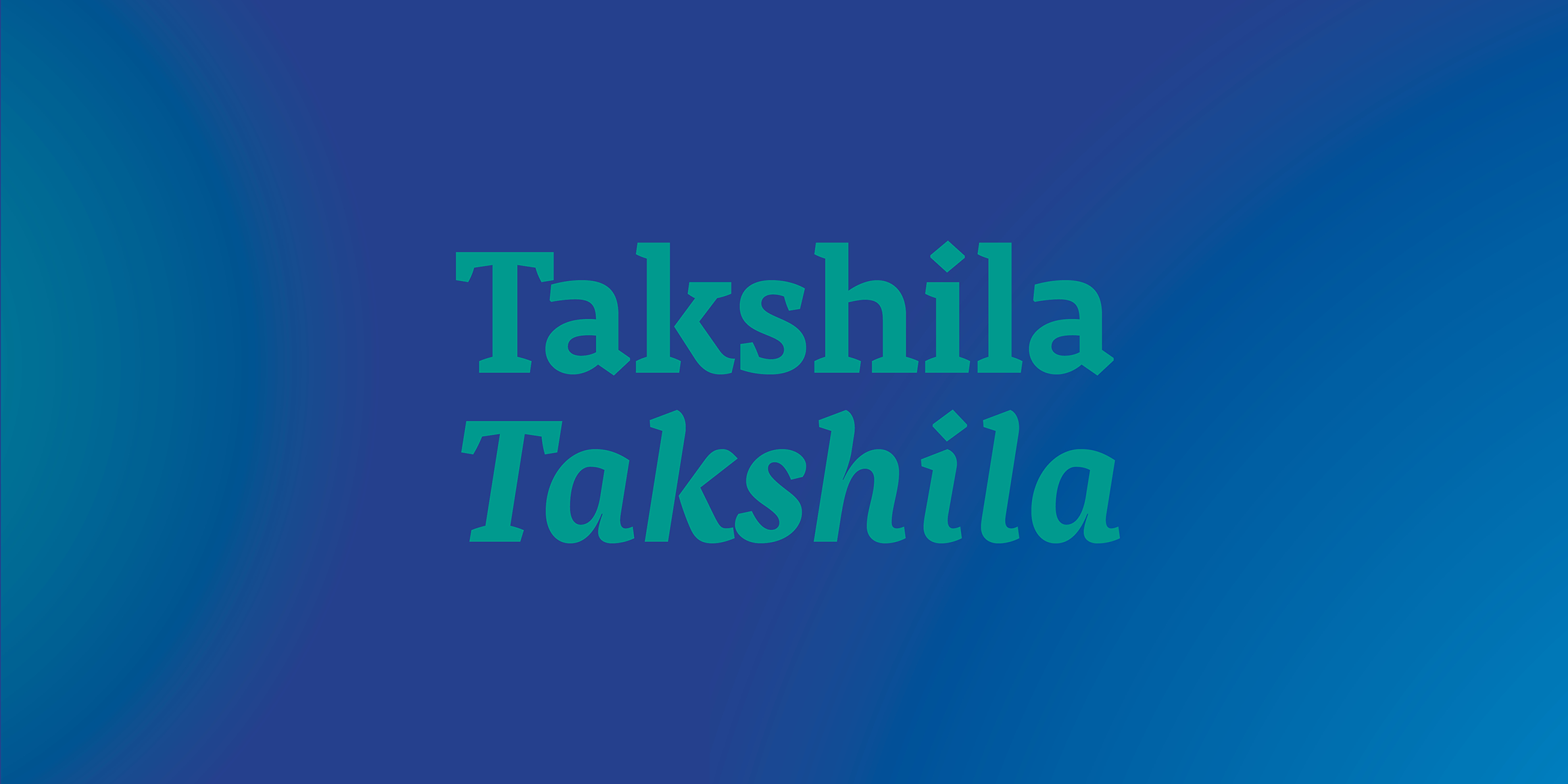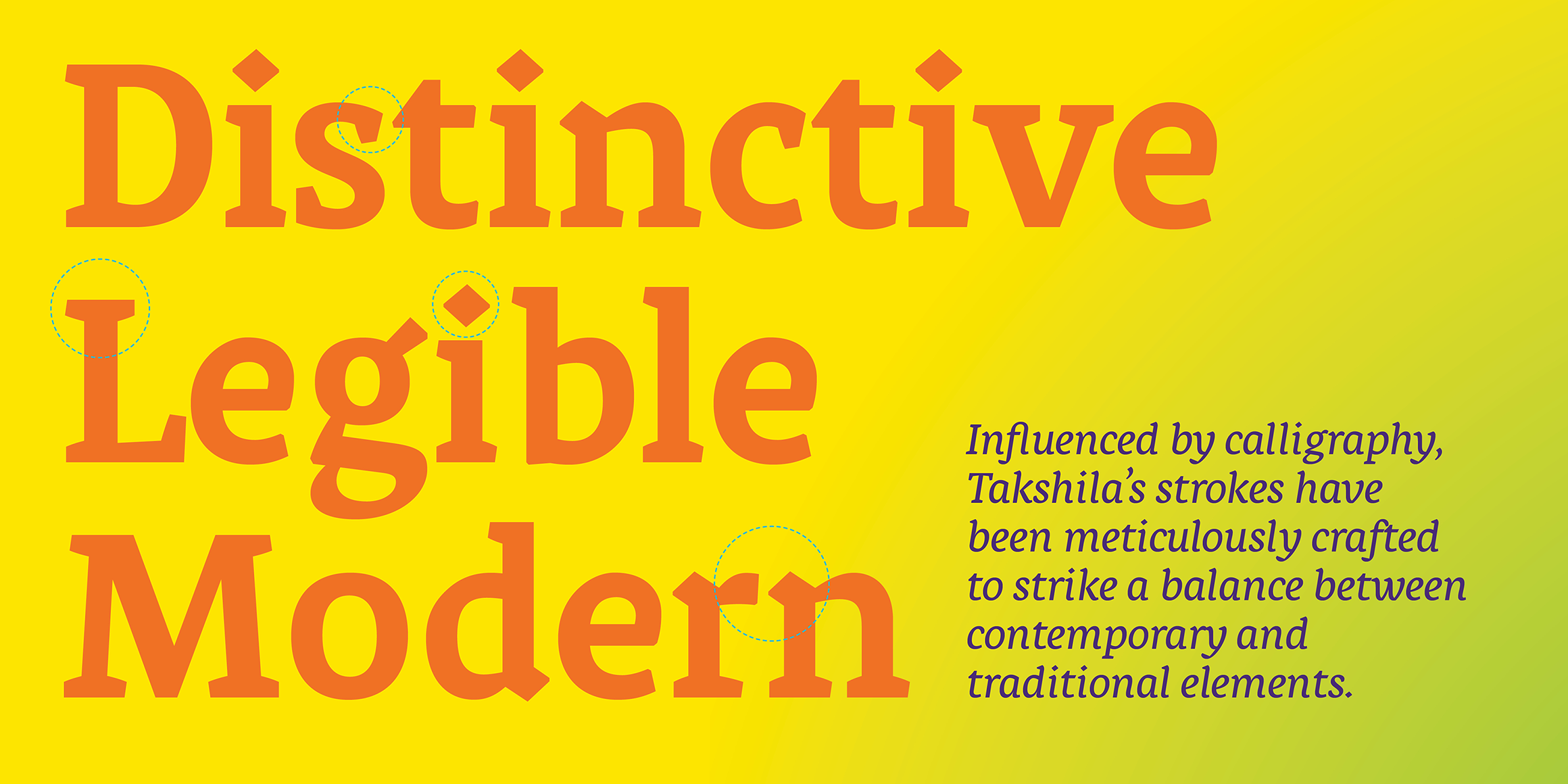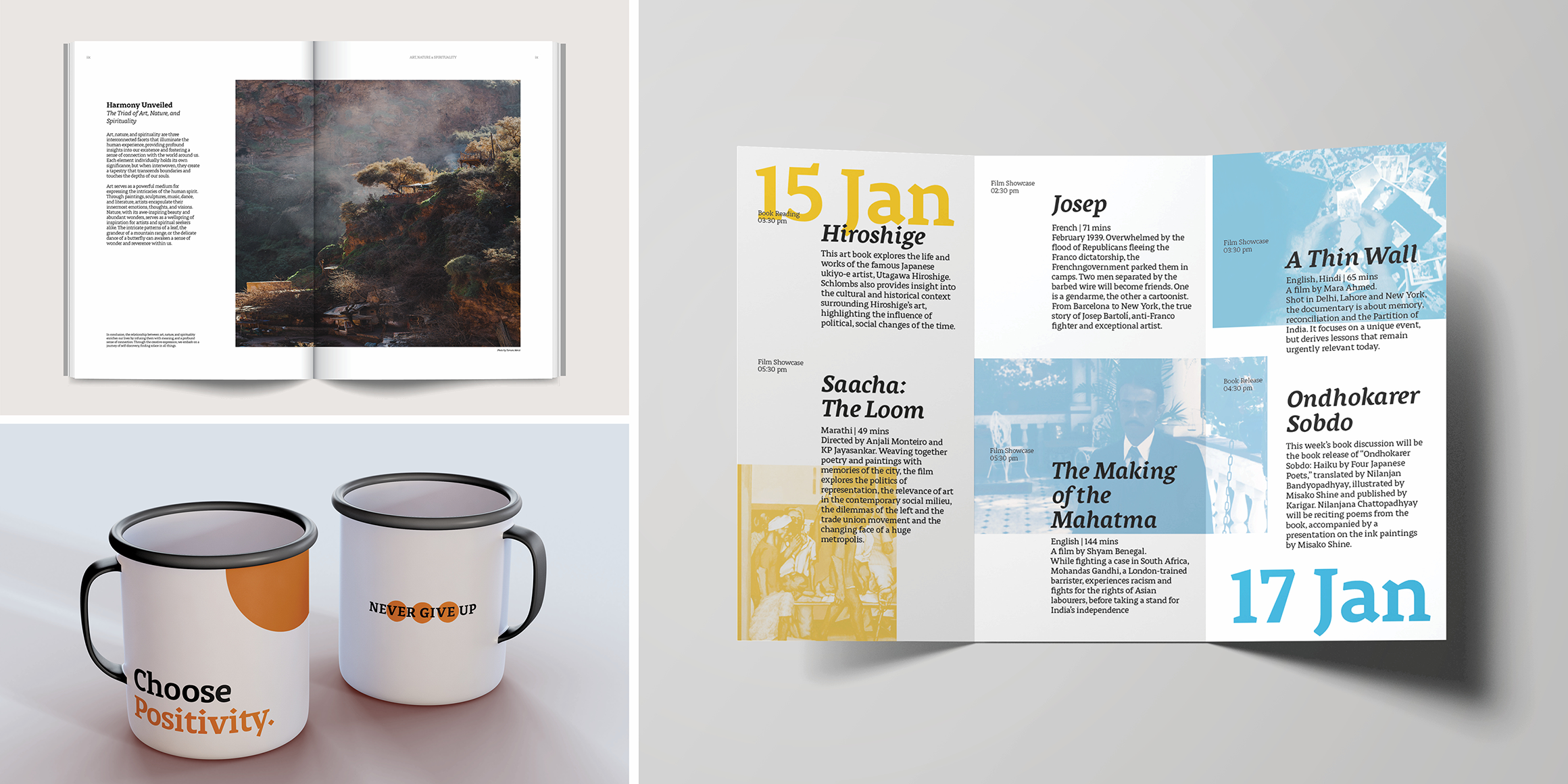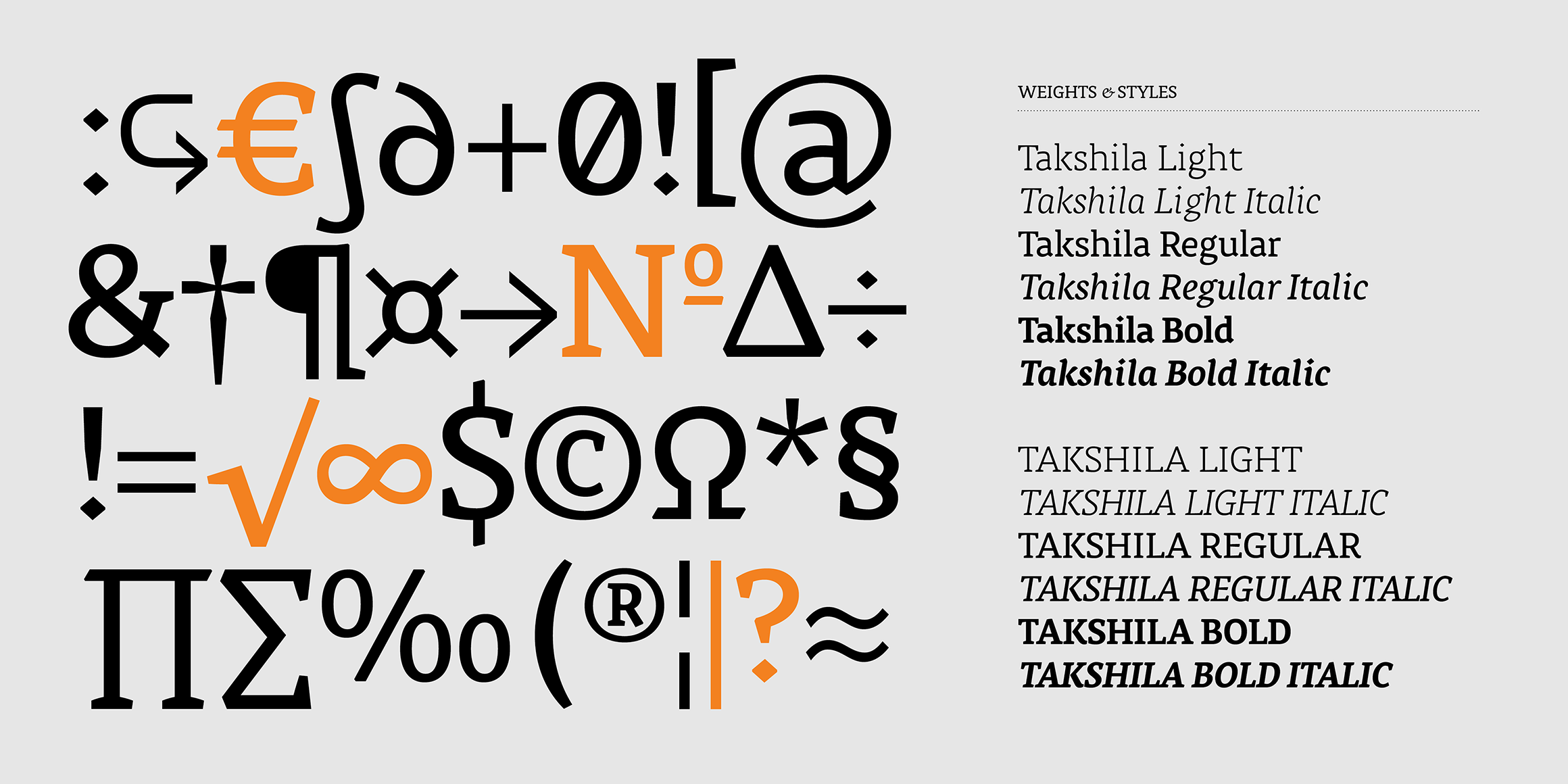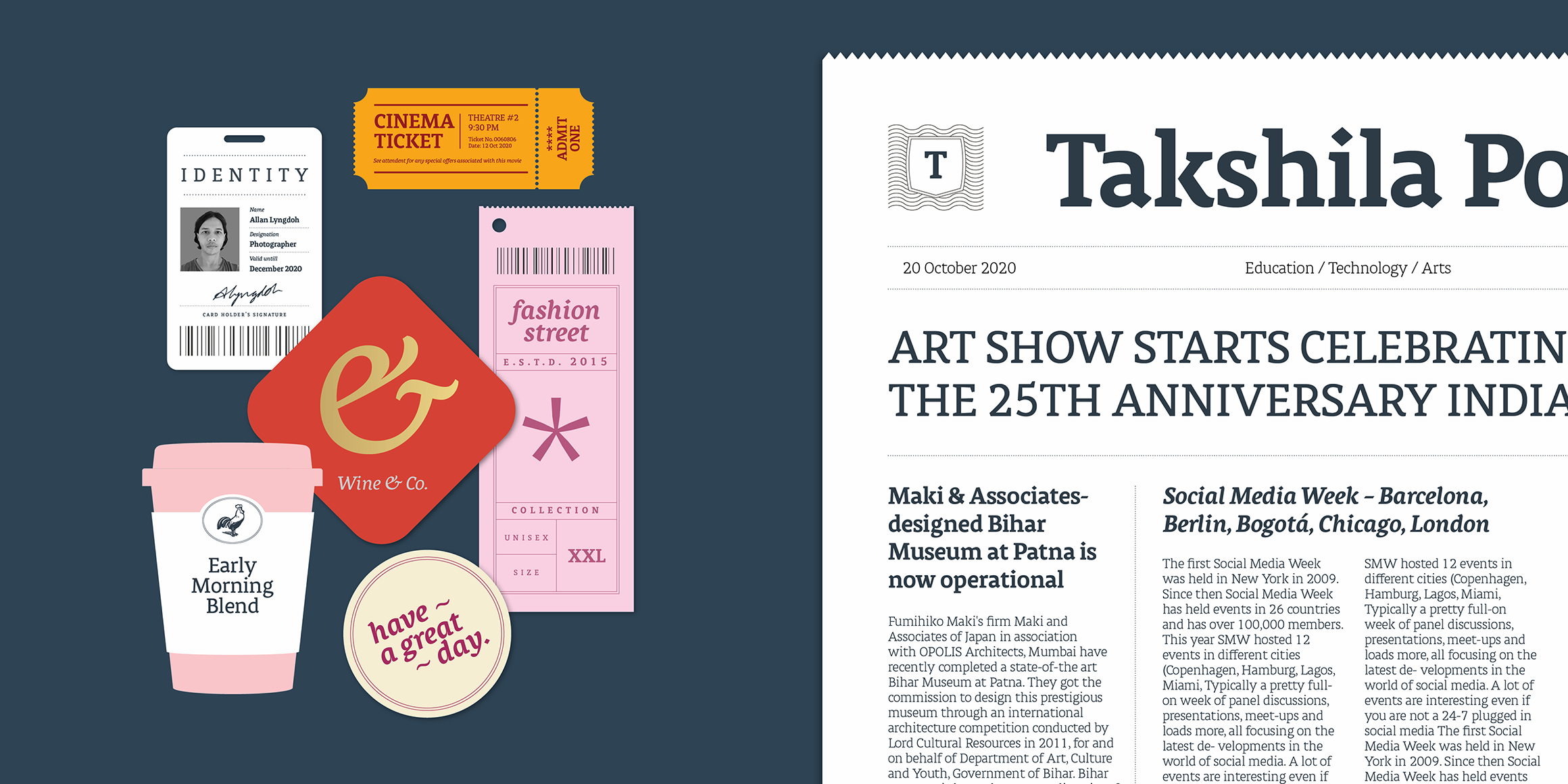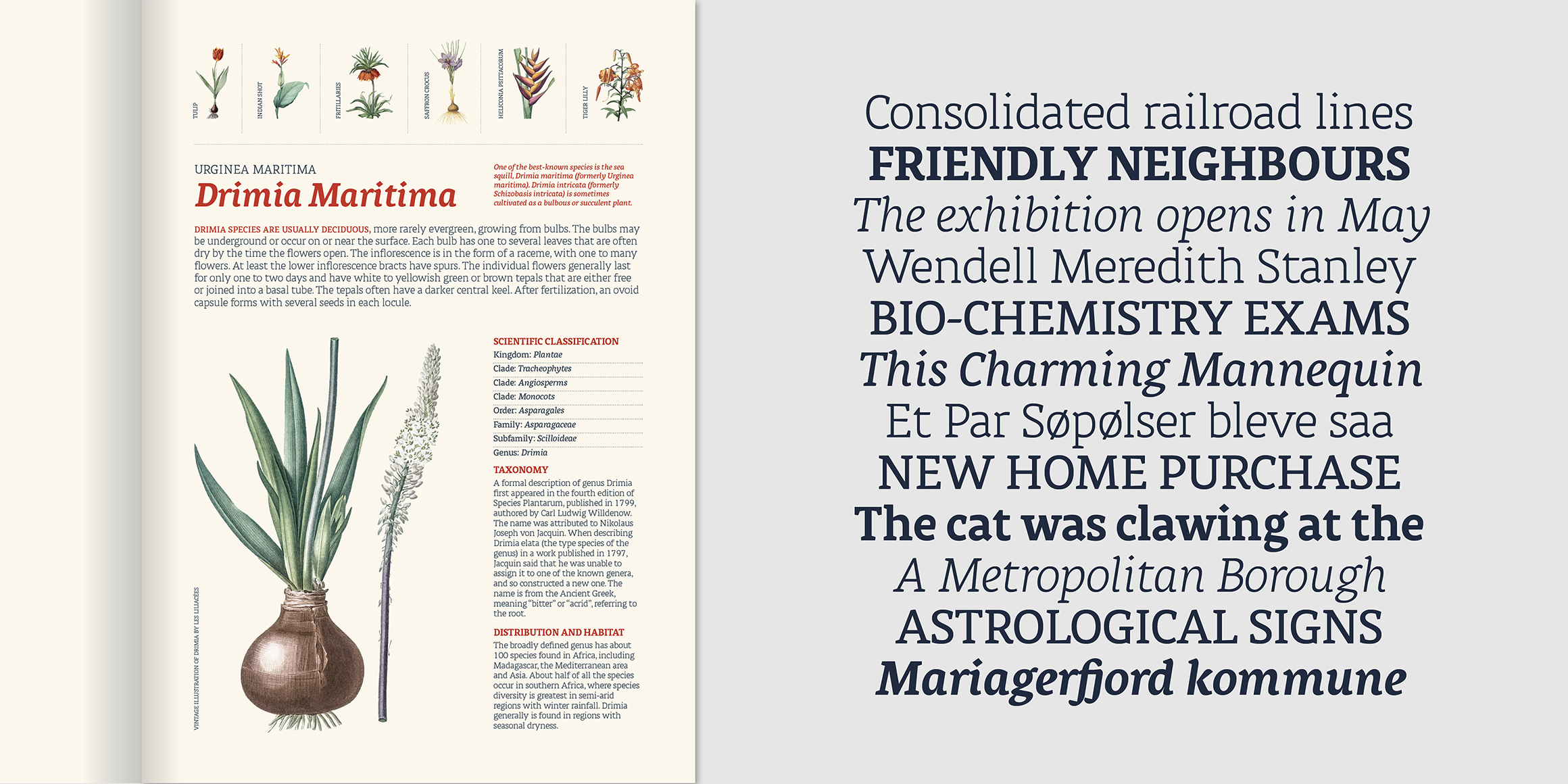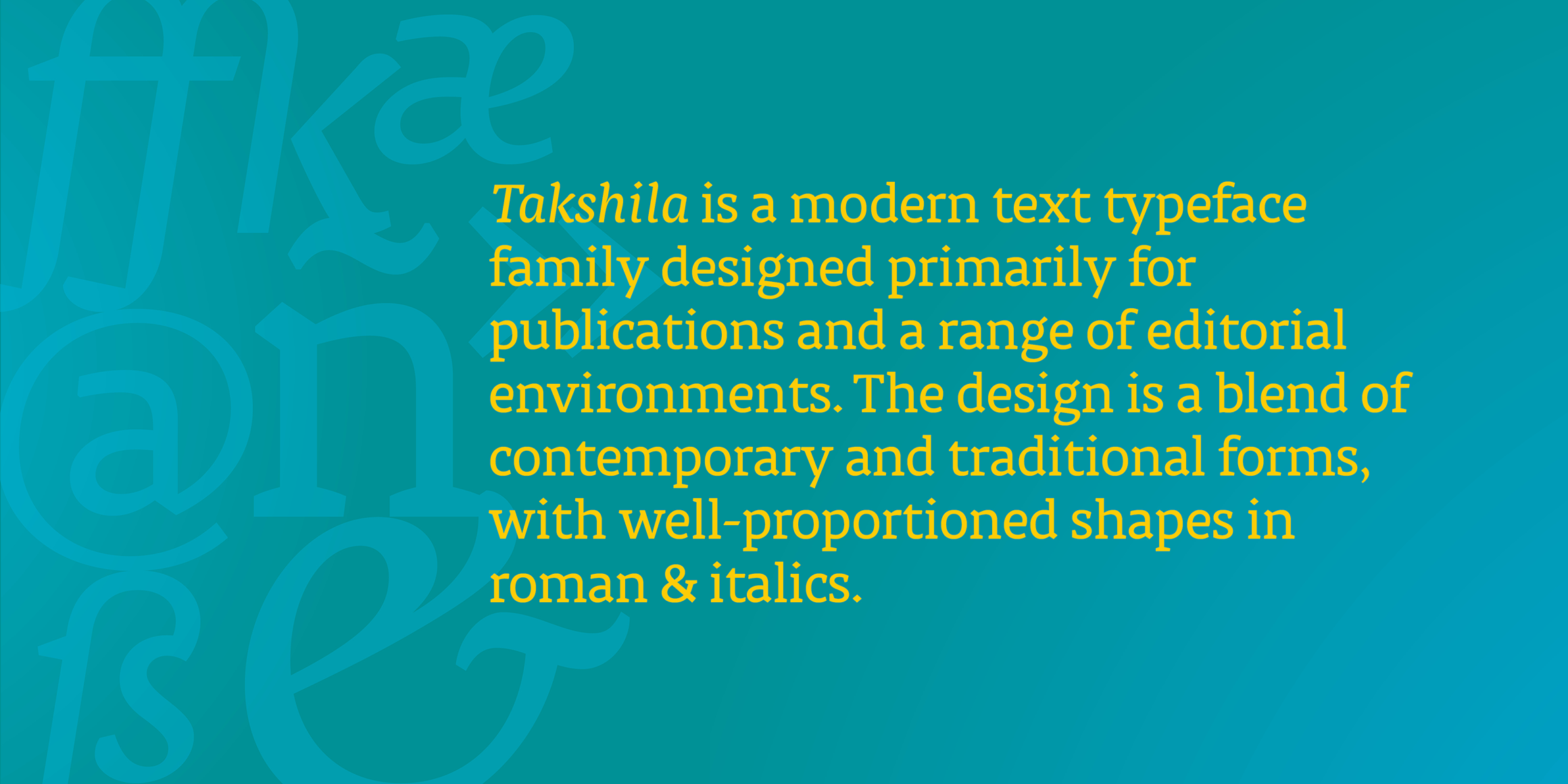
Takshila
Takshila is a modern text typeface family designed primarily for publications and a range of editorial environments. The design is a blend of contemporary and traditional forms, with well-proportioned shapes in roman & italics. Its letterforms are crafted with precision, ensuring excellent readability at small text sizes while retaining elegance at display sizes. The family includes a range of weights and styles, making it versatile for books, magazines, newspapers, and digital platforms alike.